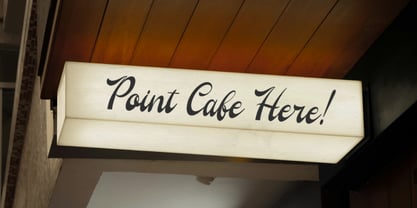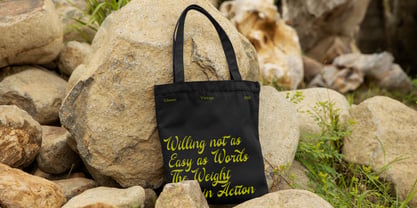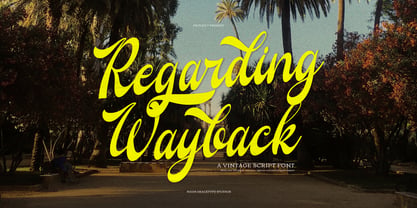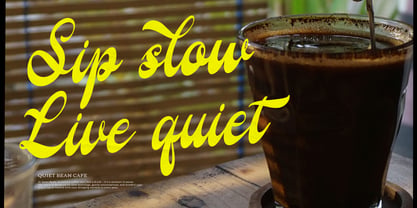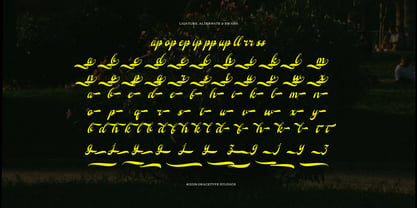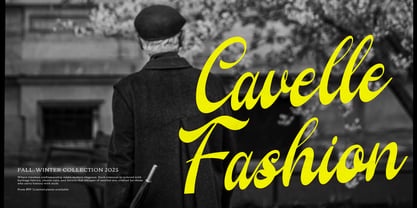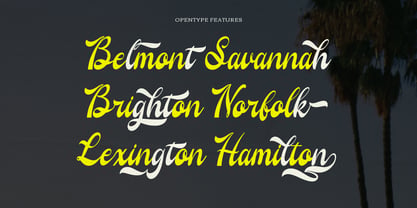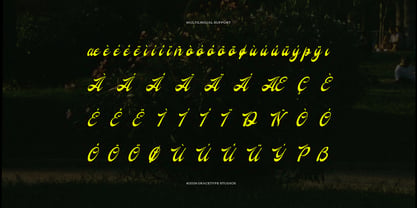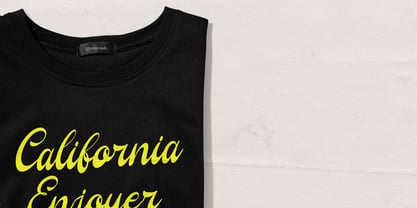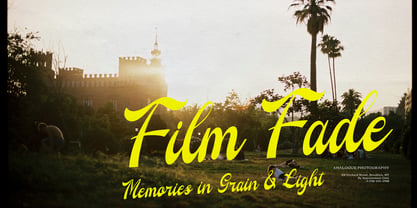
Regarding Wayback
Regarding Wayback | Vintage Script, from Gracetypestudio, suitable for any projects such as: logos, branding projects, homeware designs, product packaging, mugs, quotes, posters, shopping bags, t-shirts, book covers, name card, invitation cards, greeting cards, label, photography, watermark, special events, and all your other lovely projects that need a Vintage taste.